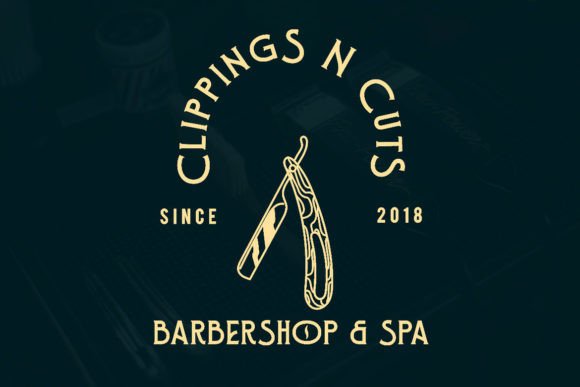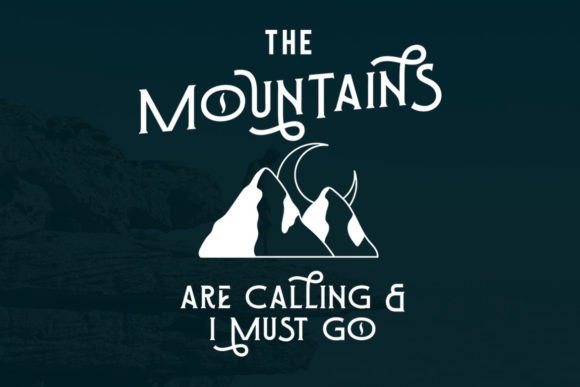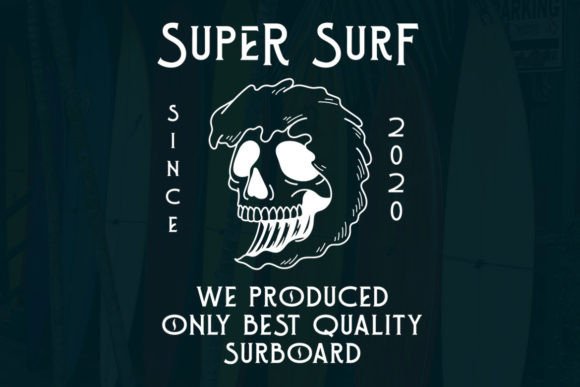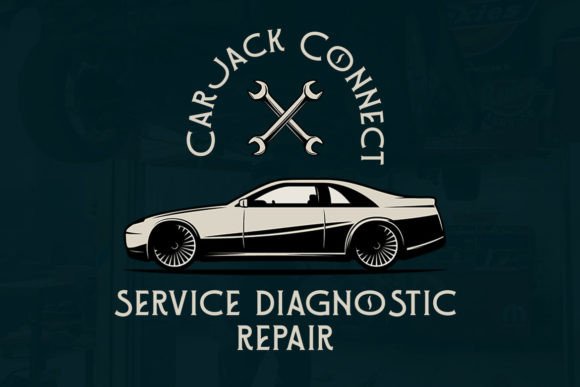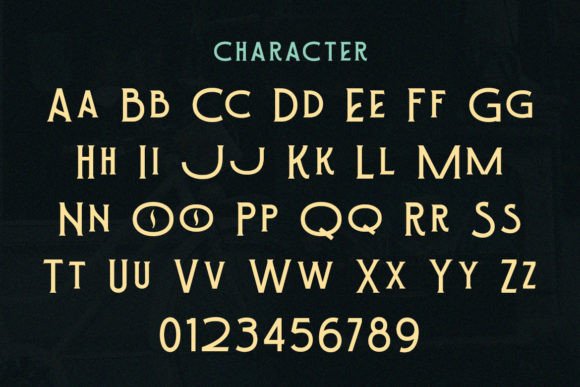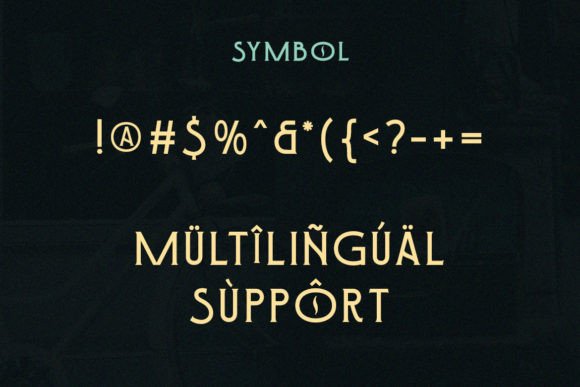
Aberrant Font: Elevate Your Designs with a Unique Serif Style
Aberrant is a distinctive and stylish serif font that has been making waves in the design community. Its incredibly vintage aesthetic makes it an ideal choice for designers and crafters looking to add a touch of elegance and sophistication to their creative projects. In this article, we’ll dive into the world of Aberrant Font, exploring its features, benefits, and uses.
What is Aberrant Font?
Aberrant Font is a serif typeface that boasts a unique and captivating design. Its vintage-inspired aesthetic is reminiscent of classic fonts from the early 20th century, but with a modern twist. The font’s intricate details and ornate features make it perfect for designs that require a touch of luxury and refinement.
Key Features of Aberrant Font
- Unique Serif Design: Aberrant Font features a distinctive serif design that sets it apart from other fonts. Its serifs are carefully crafted to add a touch of elegance and sophistication to any design.
- Vintage Aesthetic: The font’s vintage-inspired aesthetic makes it perfect for designs that require a classic, timeless look.
- Highly Legible: Despite its ornate features, Aberrant Font is highly legible, making it suitable for use in a variety of applications, from headings and titles to body text.
- Versatile: Aberrant Font is a versatile font that can be used in a wide range of creative projects, from branding and advertising to packaging and web design.
Benefits of Using Aberrant Font
So, why should you choose Aberrant Font for your next design project? Here are just a few benefits of using this unique and stylish serif font:
- Adds Elegance and Sophistication: Aberrant Font’s vintage aesthetic and intricate details add a touch of elegance and sophistication to any design.
- Stand Out from the Crowd: With its unique serif design and vintage aesthetic, Aberrant Font is sure to make your design stand out from the crowd.
- Perfect for Creative Projects: Aberrant Font is suitable for use in a wide range of creative projects, from graphic design and branding to crafting and DIY projects.
Uses of Aberrant Font
Aberrant Font is a versatile font that can be used in a variety of applications, including:
- Graphic Design: Use Aberrant Font to add a touch of elegance and sophistication to your graphic designs, from brochures and flyers to posters and banners.
- Branding and Advertising: Aberrant Font is perfect for use in branding and advertising, where its unique serif design and vintage aesthetic can help to create a memorable and lasting impression.
- Packaging Design: Add a touch of luxury and refinement to your packaging designs with Aberrant Font, perfect for use on labels, packaging materials, and more.
- Web Design: Aberrant Font can be used in web design to create visually appealing headings, titles, and other typography.
- Crafting and DIY Projects: Aberrant Font is also suitable for use in crafting and DIY projects, such as scrapbooking, journaling, and card making.
Tips for Using Aberrant Font
Here are a few tips for using Aberrant Font in your designs:
- Use it Sparingly: Aberrant Font’s ornate features can be overwhelming if used excessively. Use it sparingly to add a touch of elegance and sophistication to your design.
- Pair it with a Simple Font: Pair Aberrant Font with a simple font to create visual interest and add contrast to your design.
- Experiment with Colors and Textures: Experiment with different colors and textures to add depth and visual interest to your design.
| Author | meizzalunadesign |
Aberrant Font is a unique and stylish serif font that is perfect for designers and crafters looking to add a touch of elegance and sophistication to their creative projects. Its vintage aesthetic, intricate details, and highly legible design make it suitable for use in a wide range of applications. Whether you’re working on a graphic design project, branding and advertising campaign, or crafting and DIY project, Aberrant Font is sure to make a lasting impression.